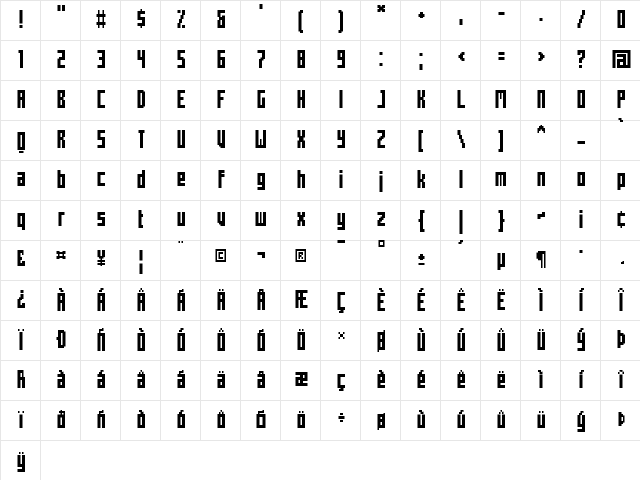
Mecha Condensed Bold Free Font
Mecha Condensed Bold
Designer: CaptainFalcon
Design Context for Mecha Condensed
Mecha Condensed is a composed and adaptable typeface that performs quietly and consistently across a wide range of design contexts. Its bold stroke weight gives it real presence on the page. Its narrow stance lets it pack a punch even in space-constrained designs.